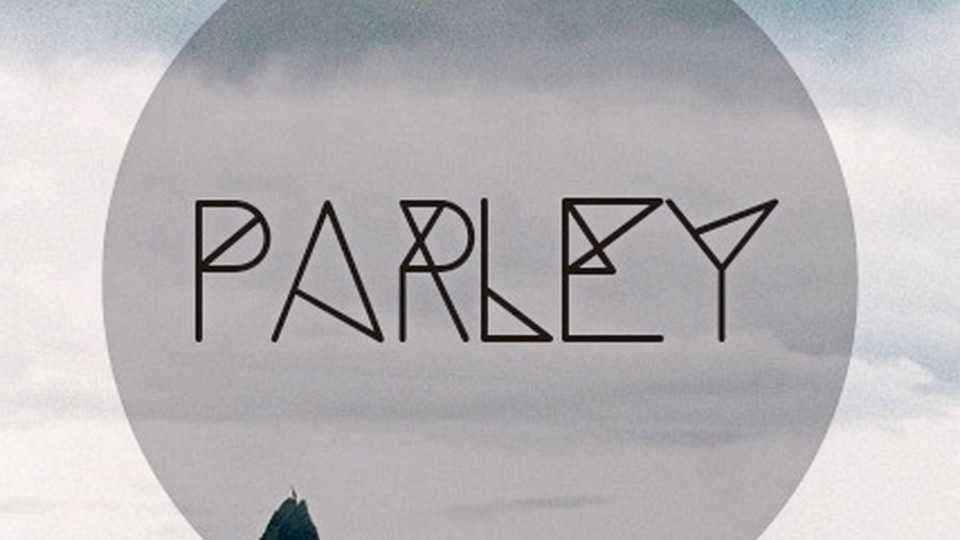
Download Parley font, a creative geometric typeface in Regular and Bold weights. Parley looks great for unique logos, branding, headlines and short messages, posters and more.
Designer: Filipe Rolim